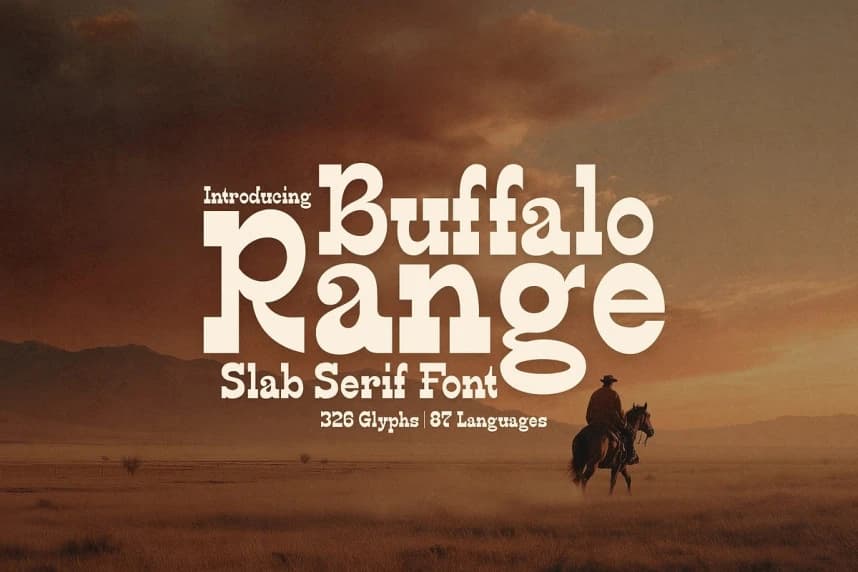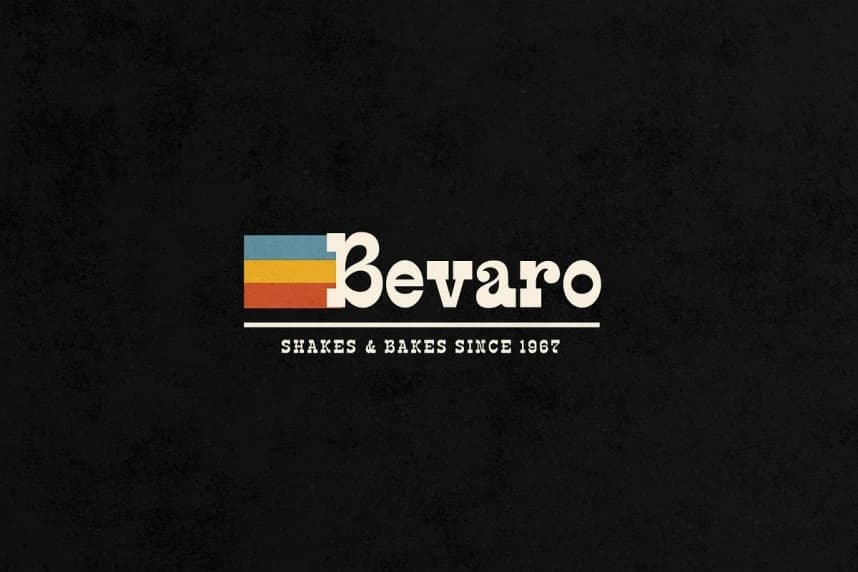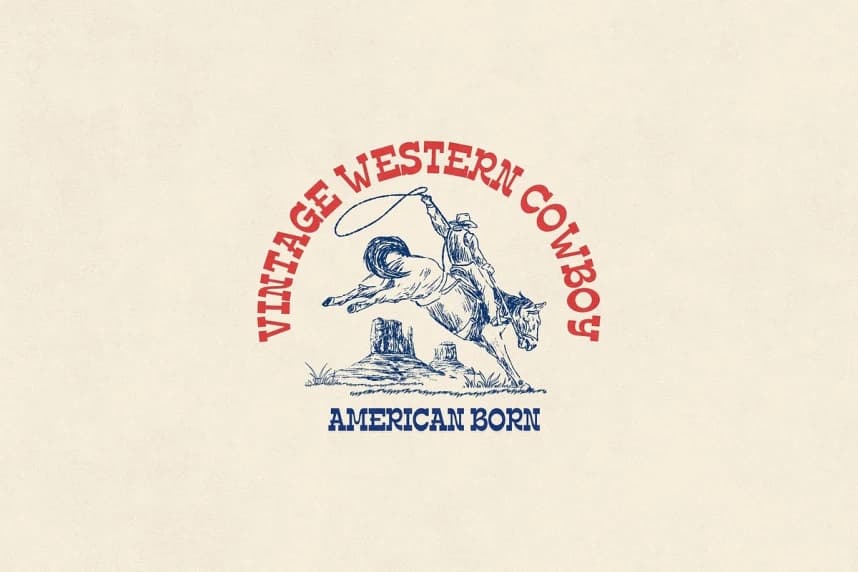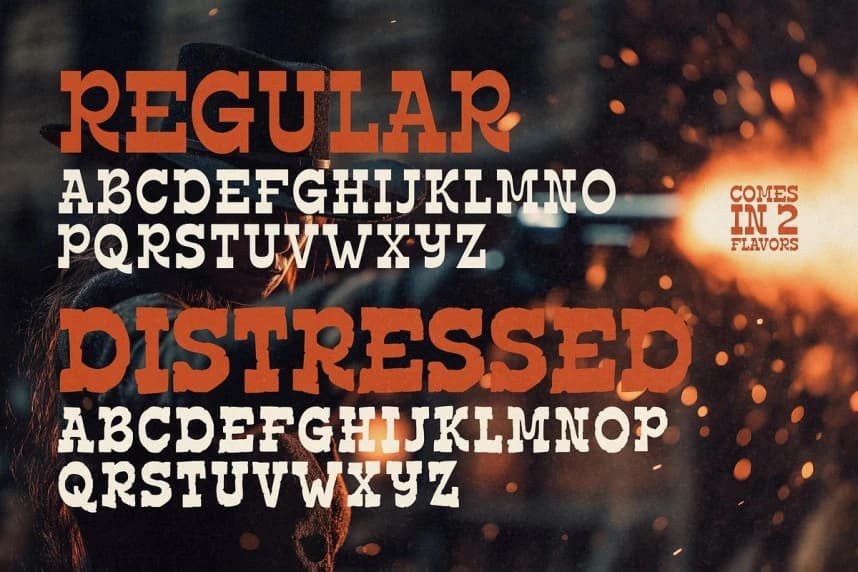
Buffalo Range Font
Buffalo Range Font is a rugged slab serif typeface that captures the untamed spirit of the American frontier. Forged from grit, dust, and the echoes of the Wild West, this bold typeface rides the line between raw authenticity and timeless design.
Buffalo Range
Buffalo Range Regular
Buffalo Range Distressed